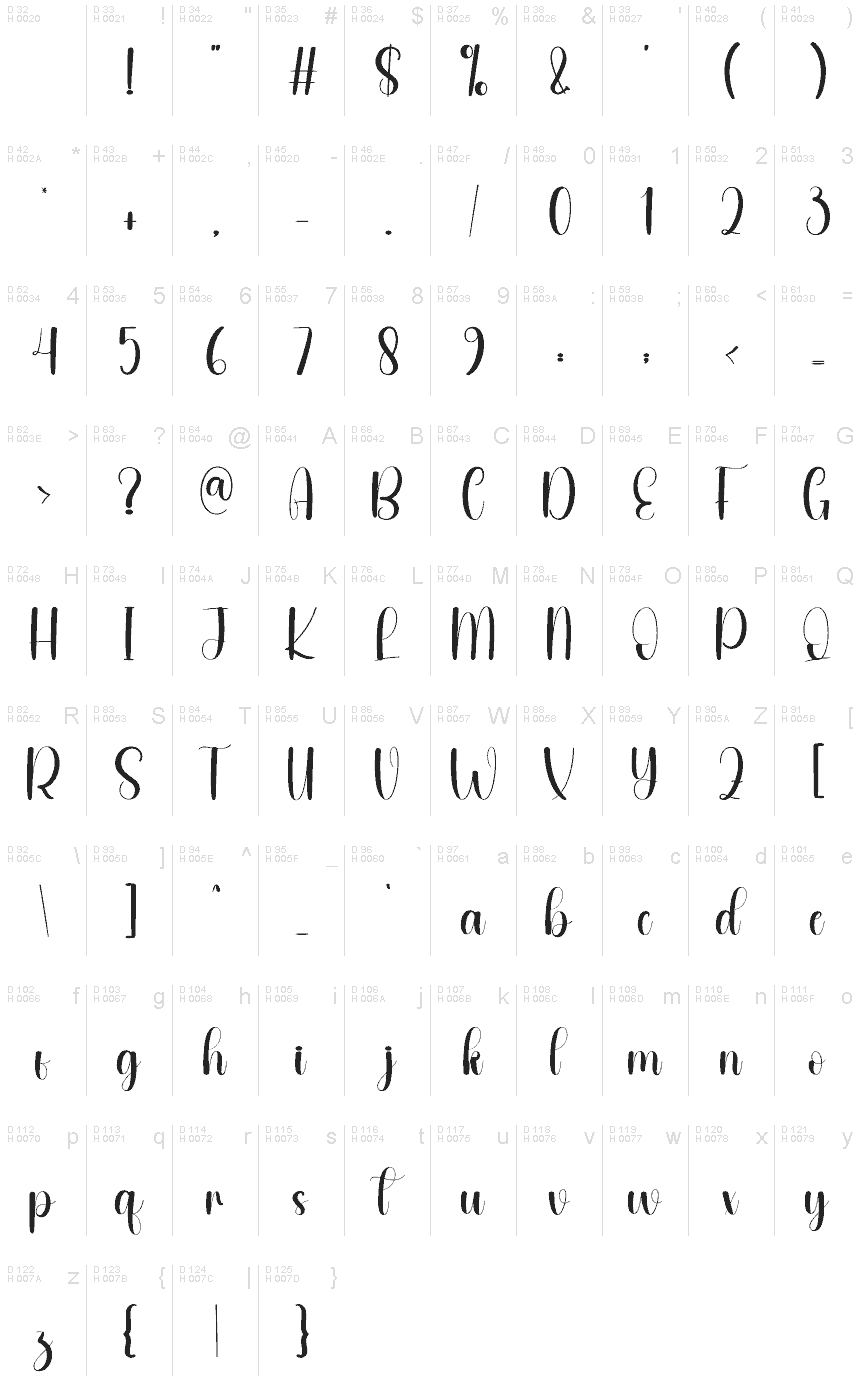
Valuntary
Valuntary font is a free calligraphy font designed by Andi Moz. Elegant, flowing, and sophisticated, this graceful type captures the fluidity of calligraphy with a modern touch. Each curve and stroke showcases its expressive nature that makes it suitable for creating diverse typography-based designs that are both aesthetic and functional.